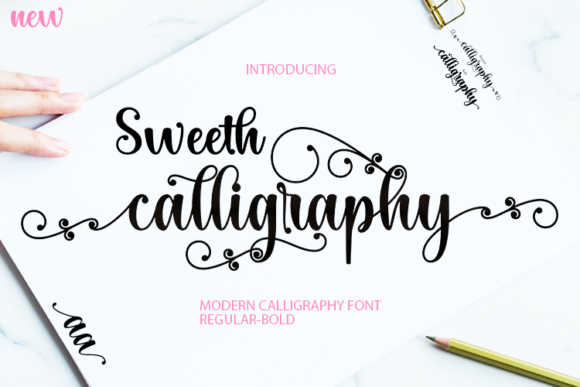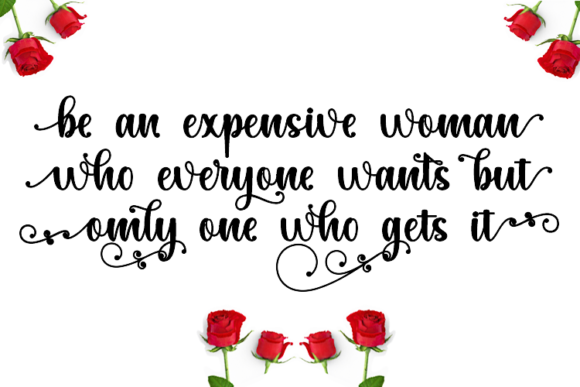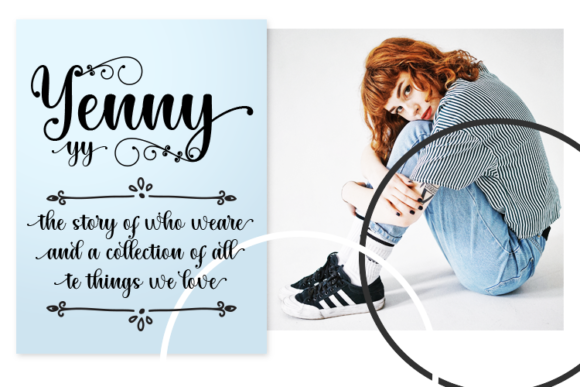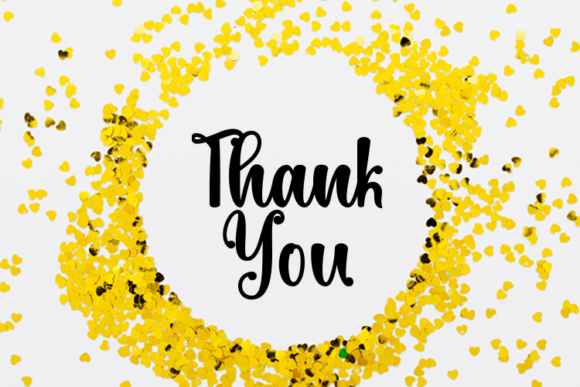
About Sweeth Calligraphy Font
Sweeth Calligraphy is a modern script font that features delicate flourishes that will add a unique element to your designs such as greeting cards, wedding invitations, branding, or logo design.